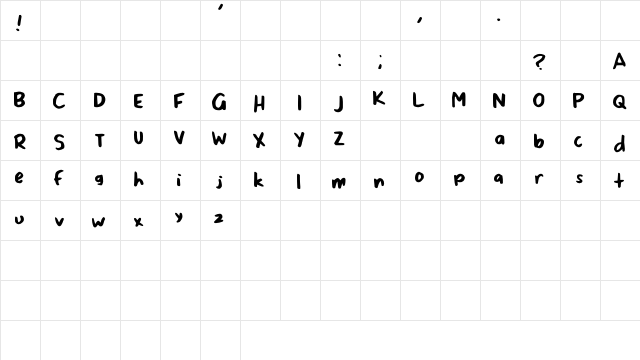
Scrappy Le Doot Regular Font Preview
Scrappy Le Doot Regular
Scrappy Le Doot Regular Font Details
Design Context for Scrappy Le Doot Typeface
Scrappy Le Doot is a composed and adaptable typeface that performs quietly and consistently across a wide range of design contexts.